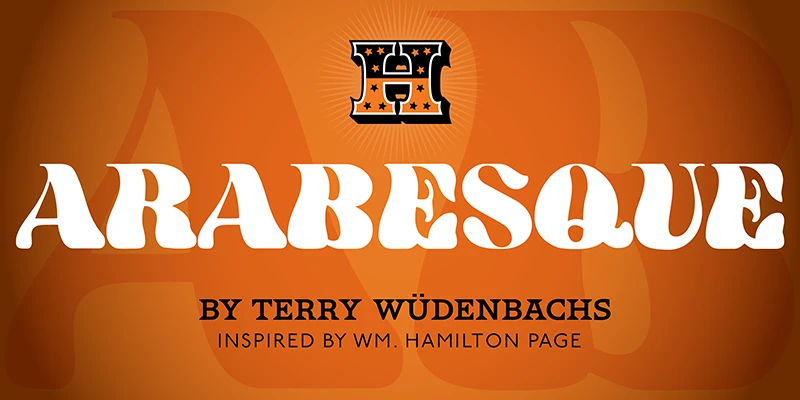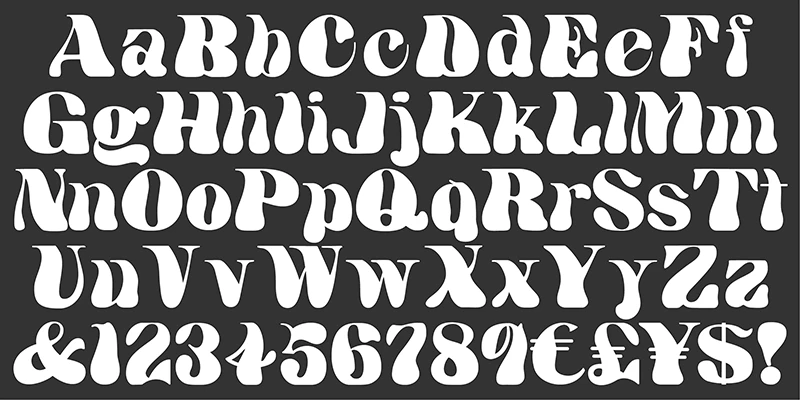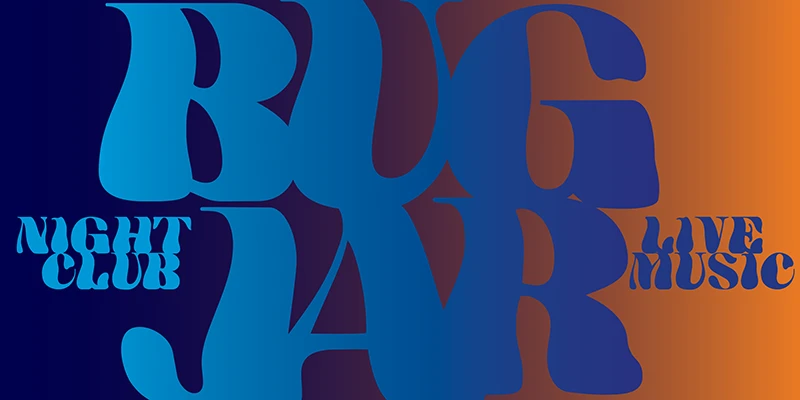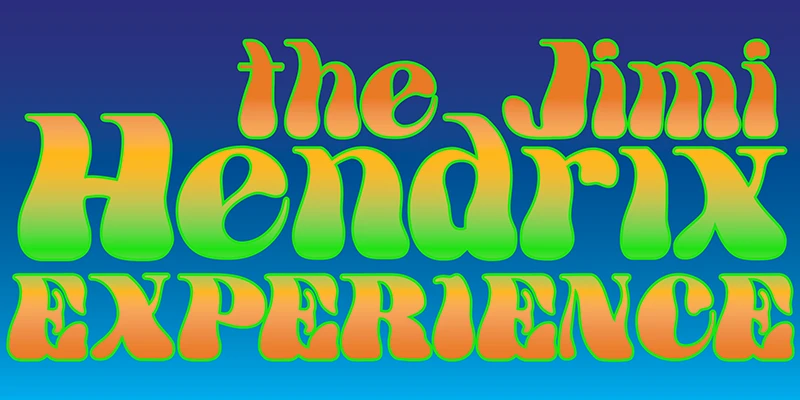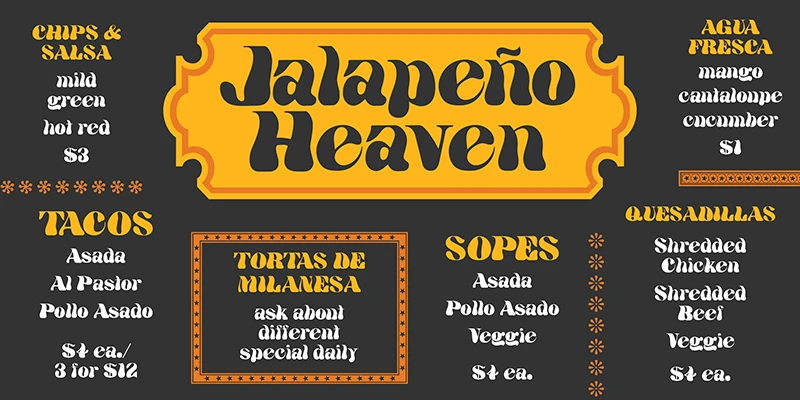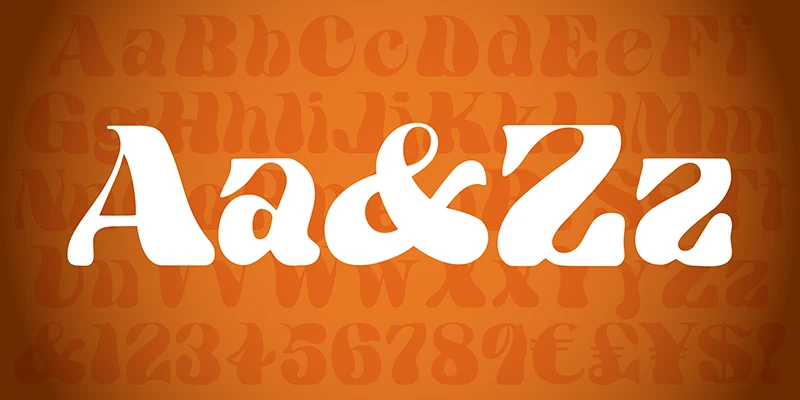
HWT Arabesque is a long-lost Art Nouveau wood type from the Hamilton Museum Collection that evokes the excesses of Victorian design and the equally quirky ’60s Psychedelic era revival of Victorian type styles. Free-flowing designs flourished with Art Nouveau in the late 1800s and were directly referenced and further distorted with phototype in the late ’60s. Arabesque defies most of the basic tenets of type design and what comes to mind when one thinks “wood type.”
Designed by Terry Wüdenbachs